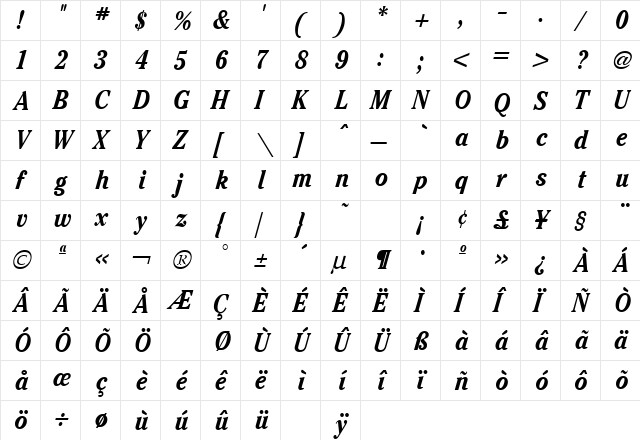
Cheltenham Condensed Bold Italic Font Preview
Design Context for Cheltenham Condensed Typeface
Cheltenham Condensed is a composed and adaptable typeface that performs quietly and consistently across a wide range of design contexts. The slanted form adds forward momentum and visual energy. The heavy weight commands attention and anchors typographic hierarchies. The condensed width makes it efficient for tight spaces without sacrificing legibility.
Pro Tip: Use Cheltenham Condensed for emphasis, pull quotes, and subheadings where its slanted energy can add rhythm to the layout.